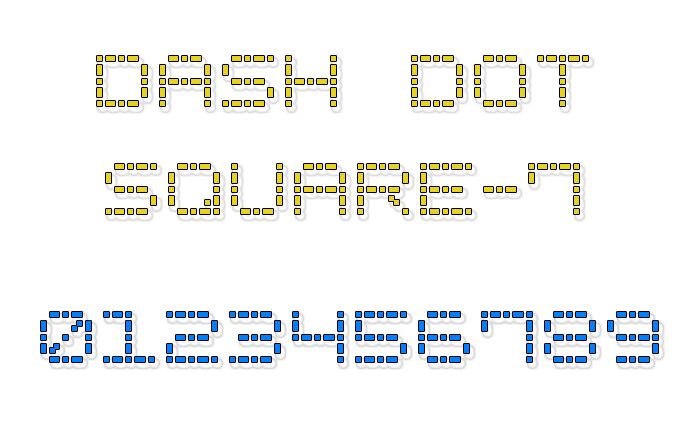
Dash Dot Square-7 from Style-7 is a free segmented digital display font modeled on the clipped marks of an early electronic readout. Its broad, open letters use short rectangular strokes separated by generous gaps, with right-angle turns and occasional diagonal runs adding motion to a pattern that stays light and spacious.
Electronic scoreboards are its most convincing setting, especially for sports graphics and arcade-style game interfaces. The airy proportions also suit techno event posters and album packaging with a retro-digital theme. Across those uses, the alternating dashes and isolated dots can echo indicator lights, circuit traces, or animated display graphics on screen.